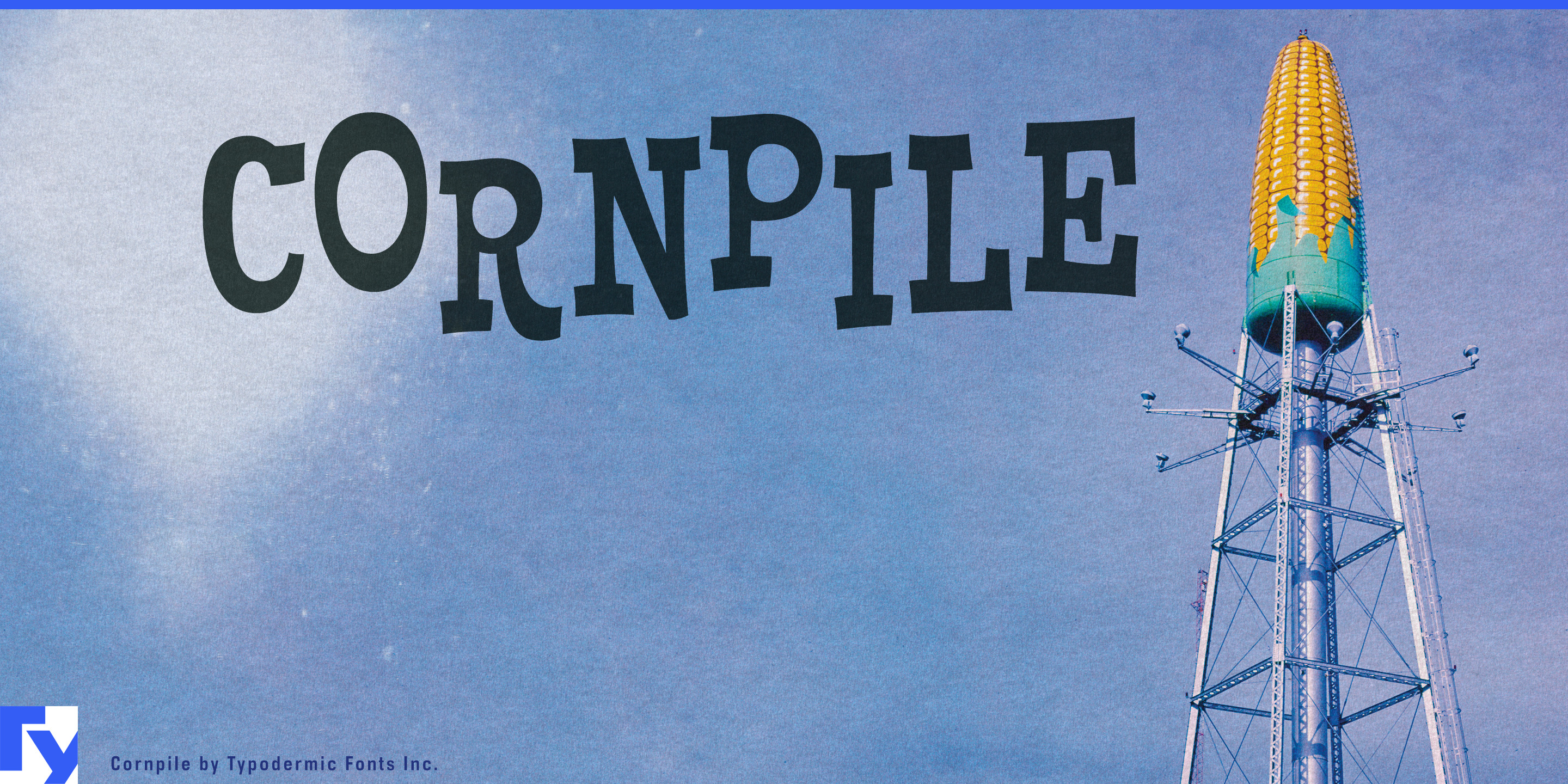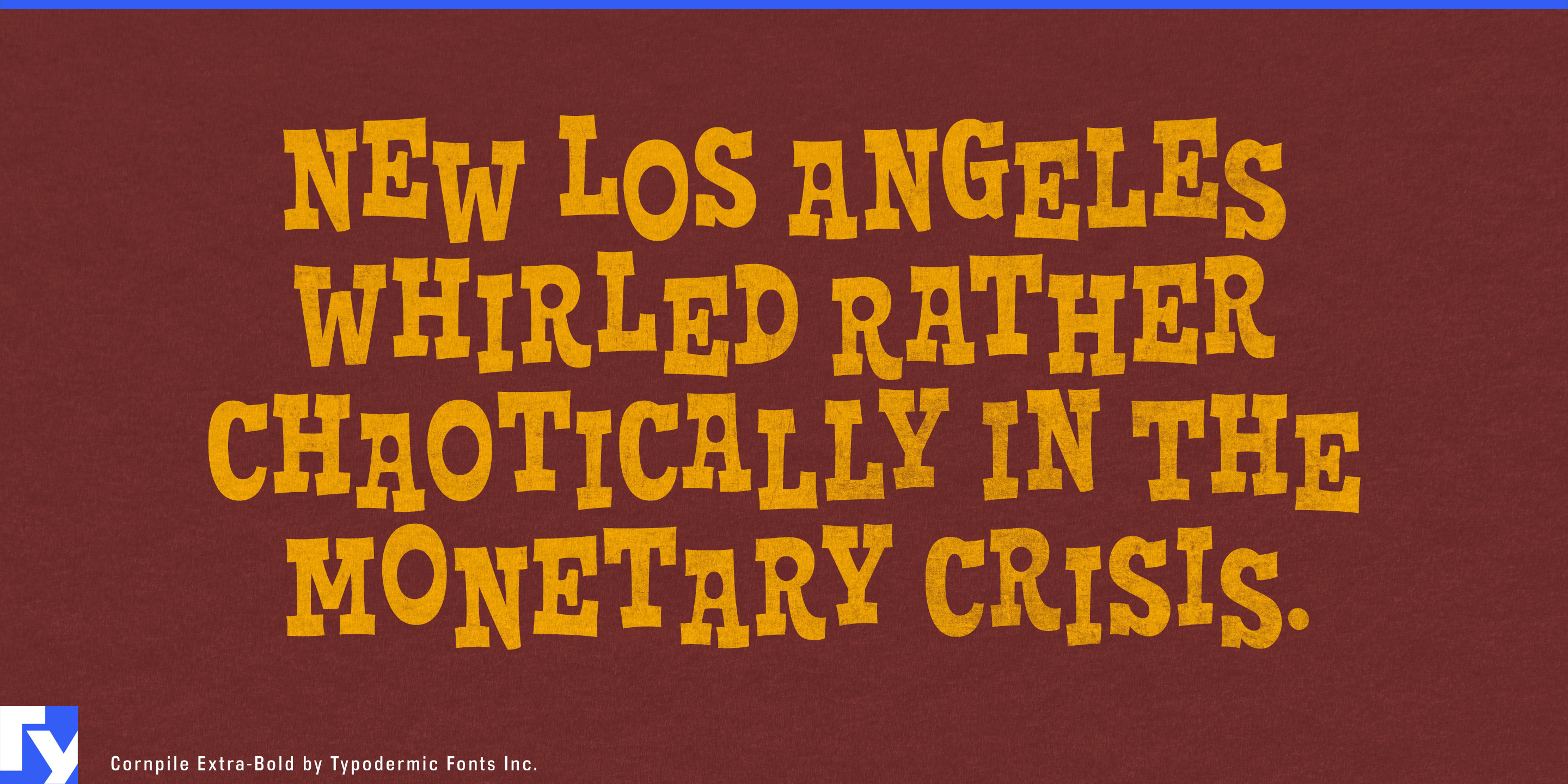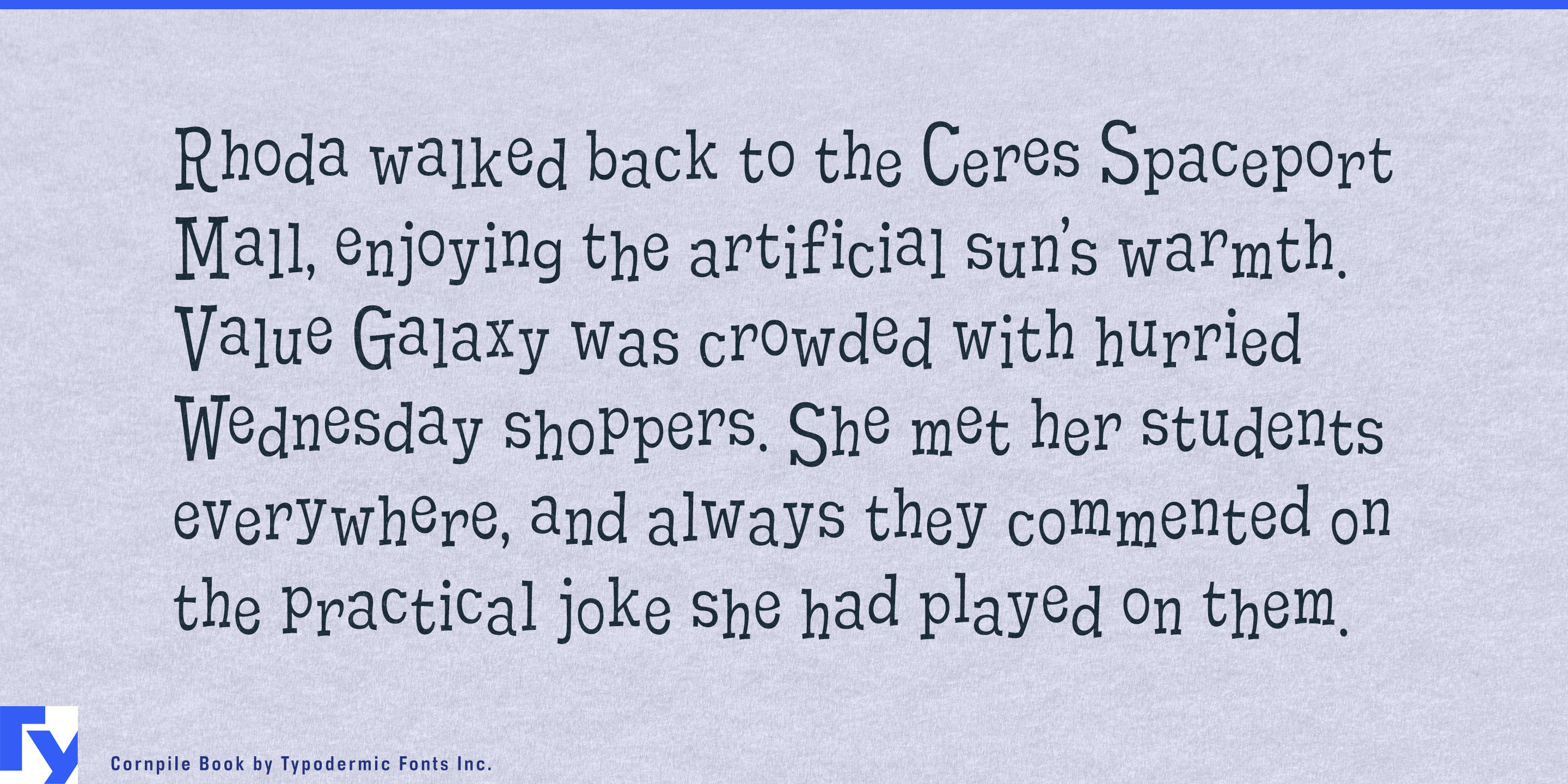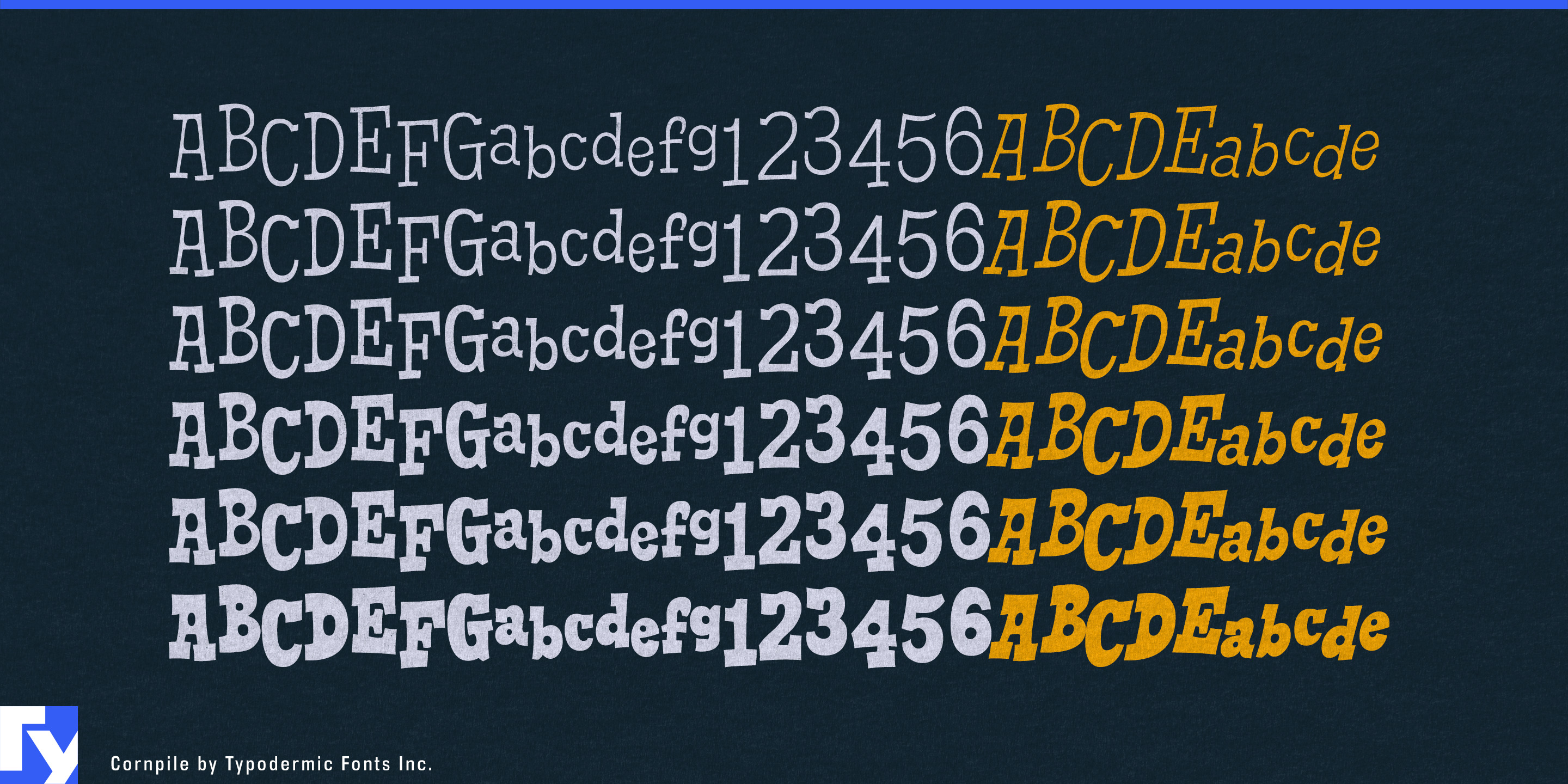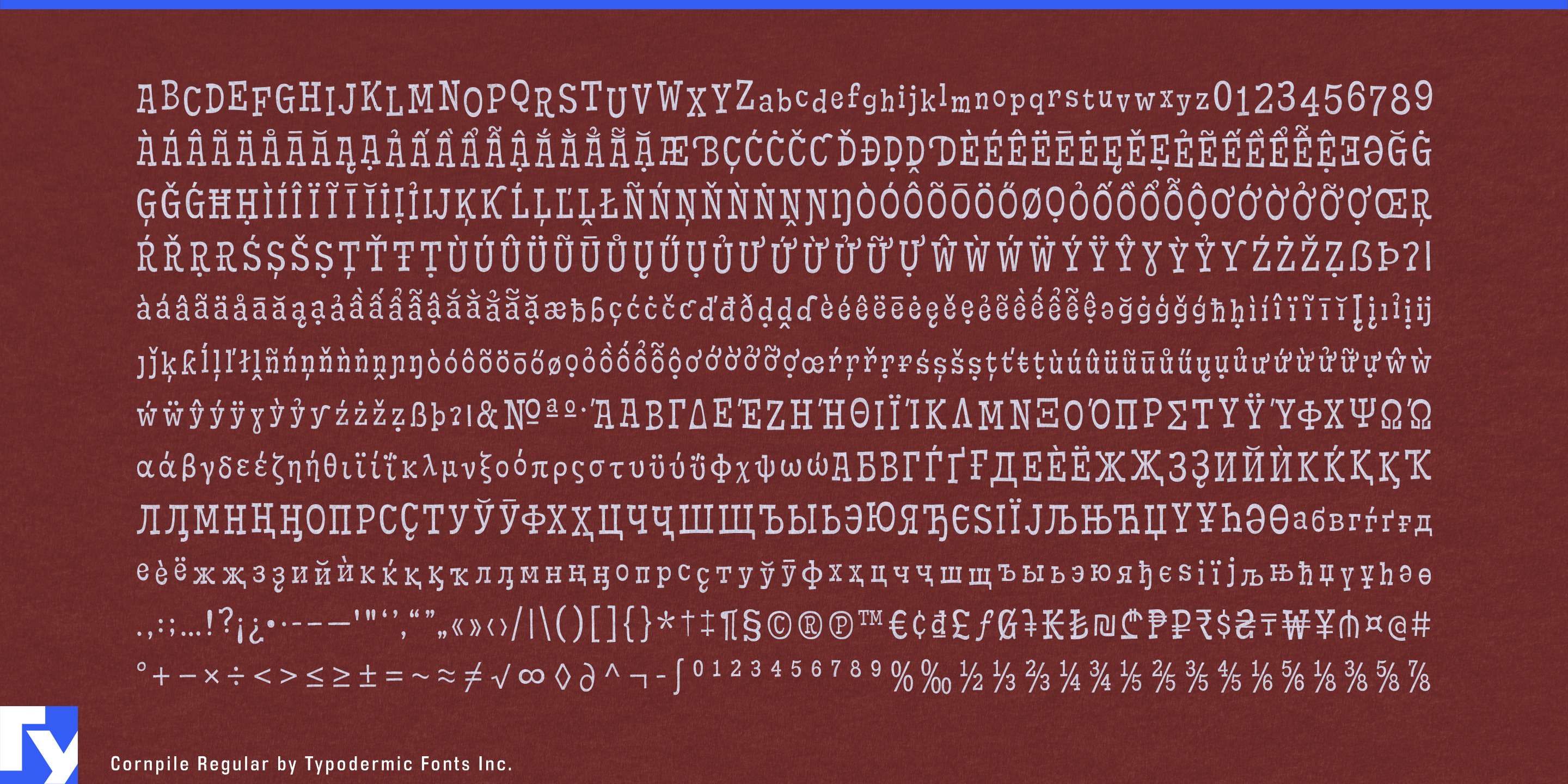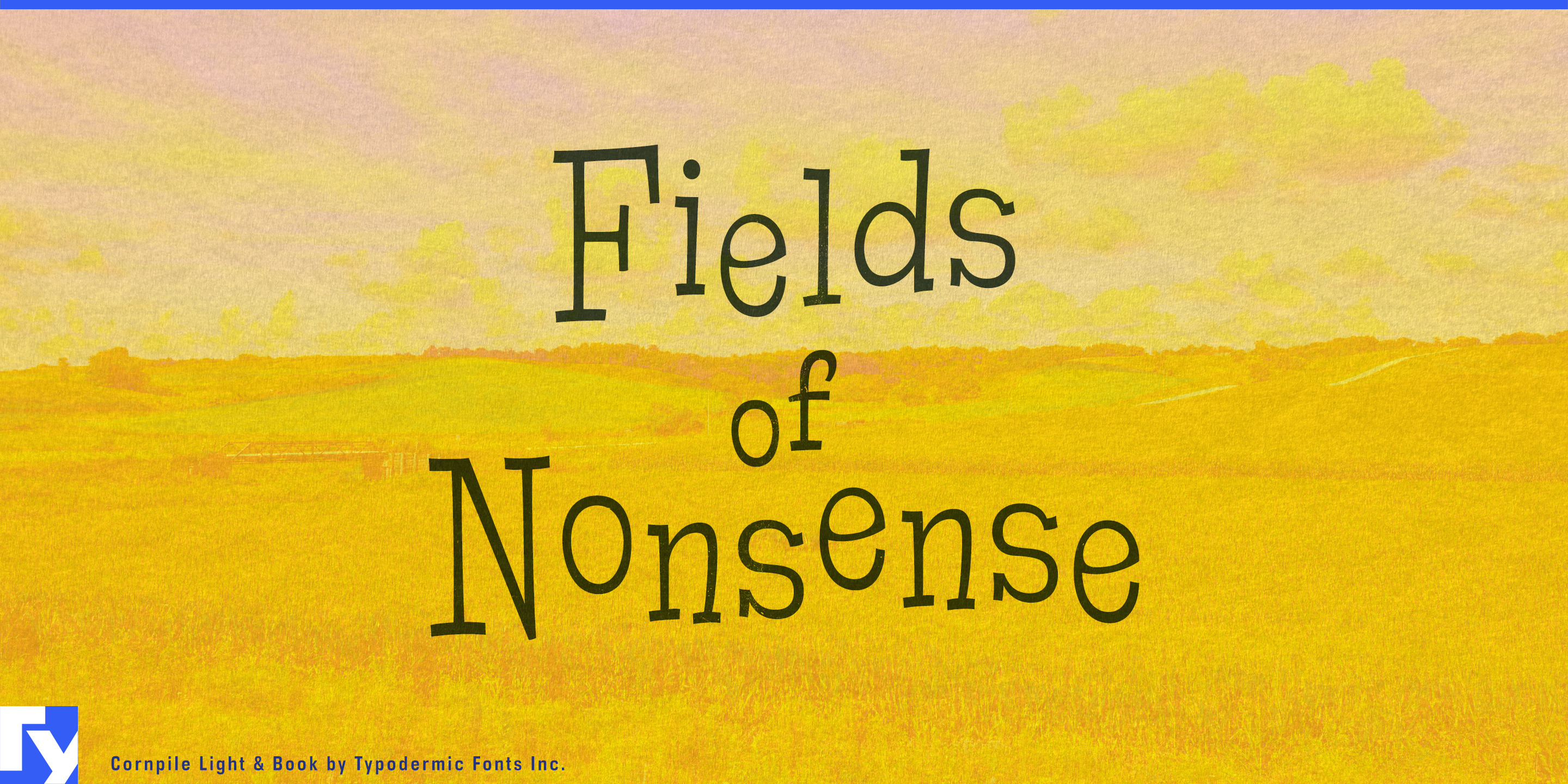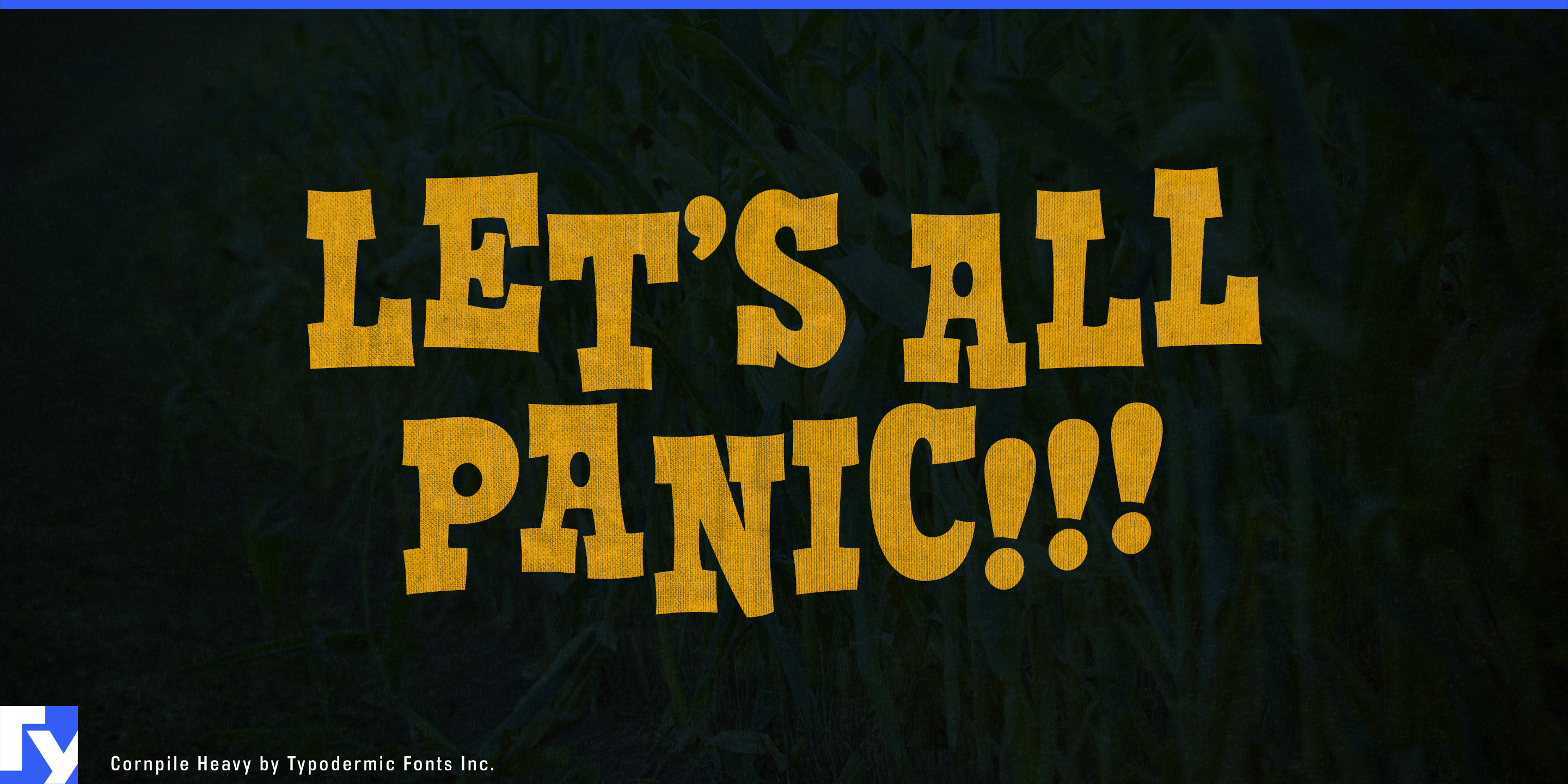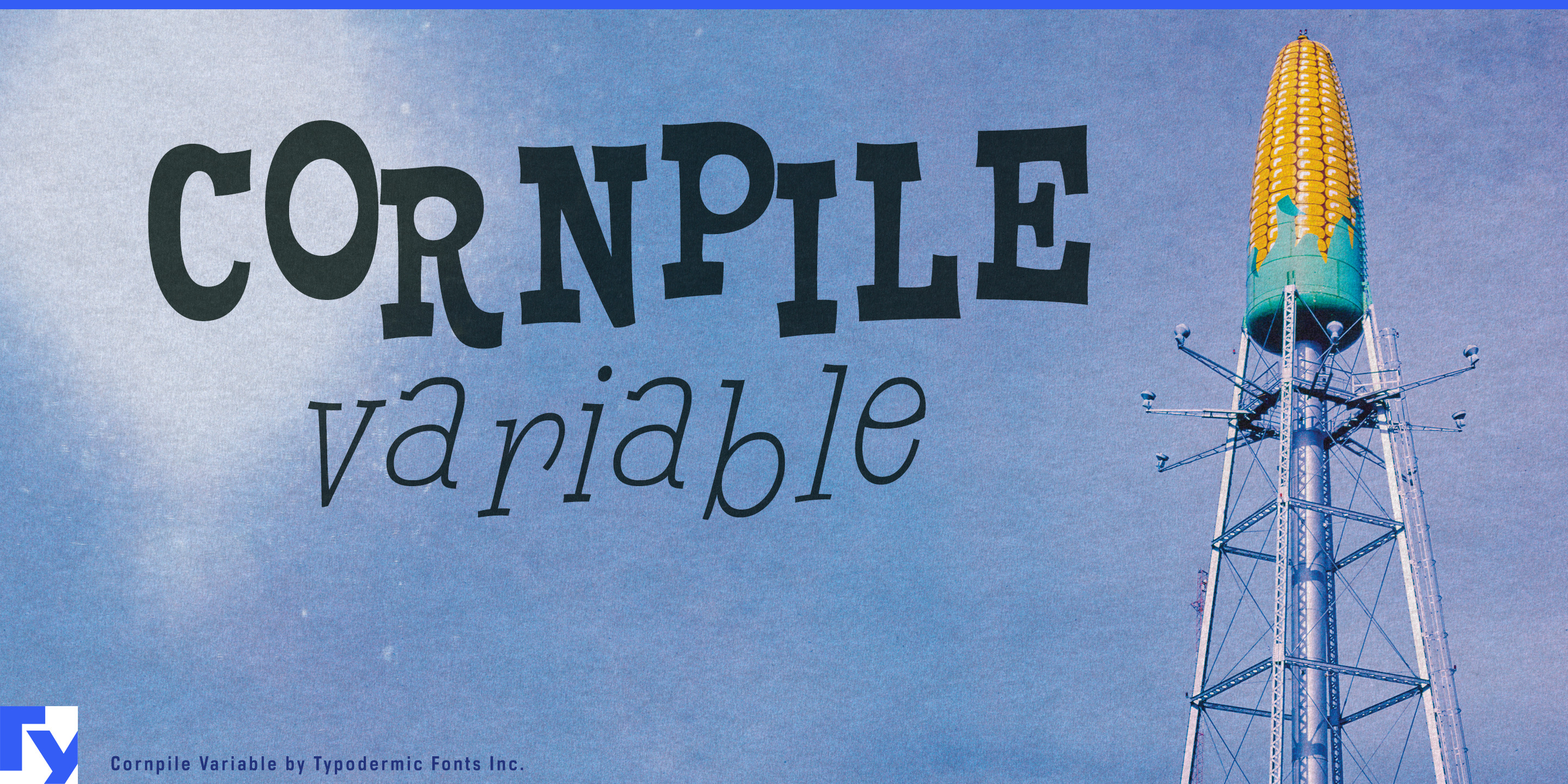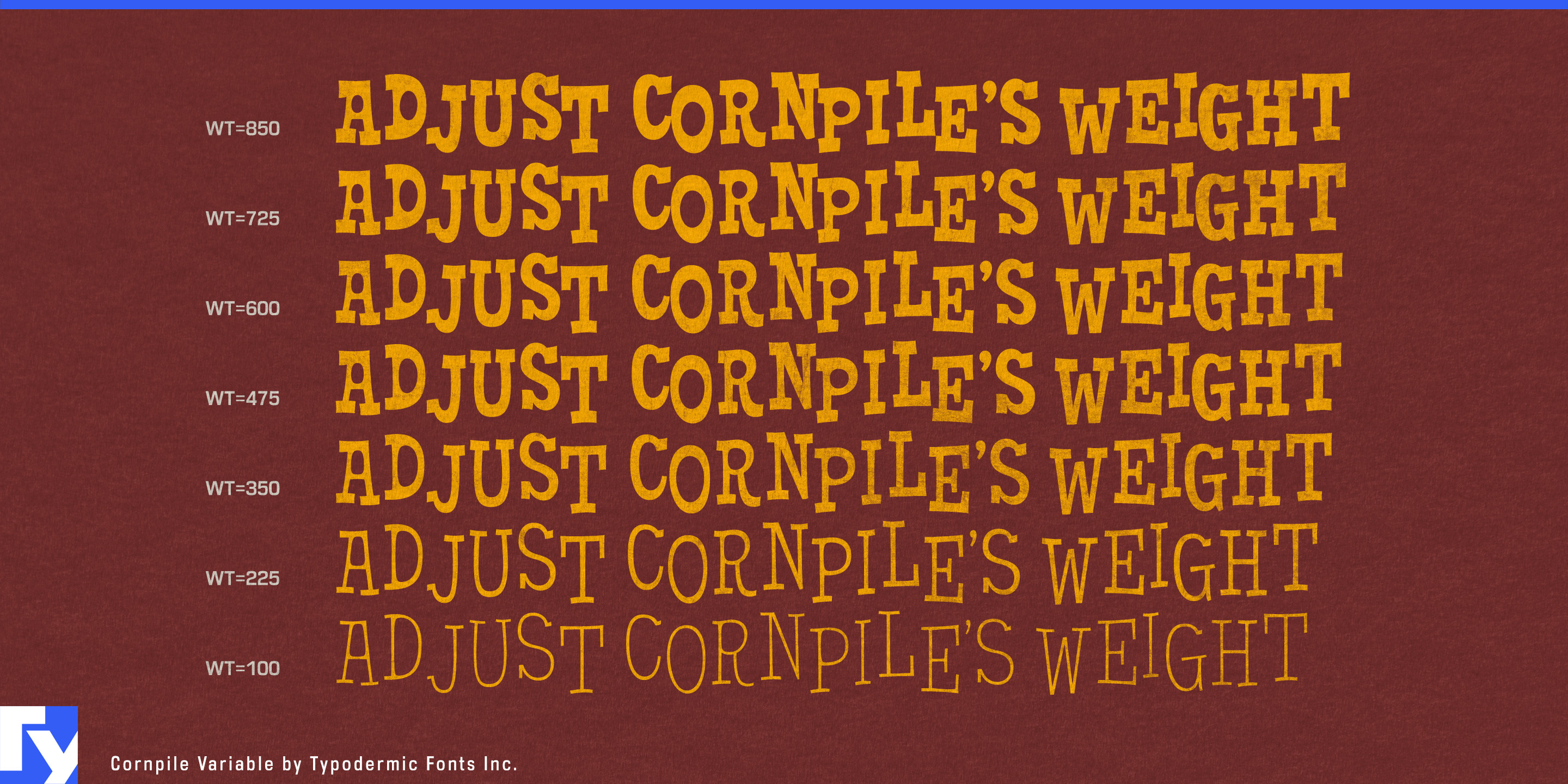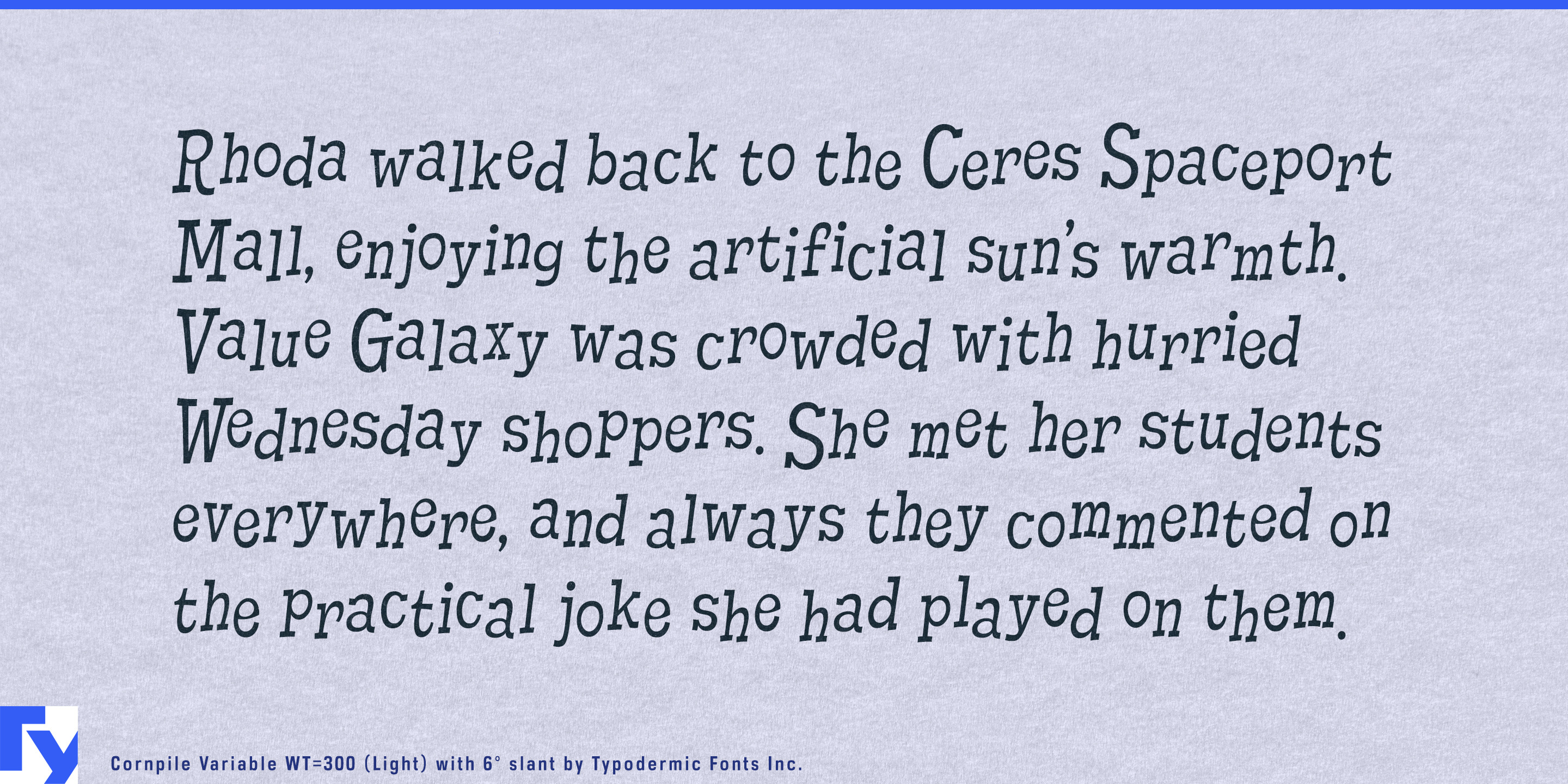
Cornpile
Cornpile is for brands and publishers that want the looseness of hand lettering without commissioning new lettering every time the words change. Its irregular curves and shifting forms keep prominent words from settling into the repeated mechanical patterns that can make playful typography feel obviously typeset. The result is lively and slightly unruly, yet practical enough to build a repeatable design system around.
That makes Cornpile especially useful for packaged-food brands with large product ranges. Popcorn, crackers, cookies, cereal, snack bars, frozen treats, flavored nuts, and confectionery lines may need dozens of flavor names, assortment packs, seasonal editions, and promotional variants. Cornpile can handle product names, flavor descriptors, short claims, and section headings while a quieter companion face takes care of nutrition and regulatory information. The lettering remains related across the range without every package feeling cloned from the same template.
Restaurant groups face a similar production problem. Burger, barbecue, sandwich, pizza, chicken, donut, and ice-cream chains continually generate digital menu boards, ordering-screen graphics, seasonal specials, cup and carton graphics, delivery-app promotions, and franchise marketing material. Cornpile brings some of the irregularity of custom lettering to content that still needs to remain editable and reusable.
Its origins in children’s publishing also make it well suited to illustrated nonfiction and educational series. Science, nature, engineering, geography, dinosaurs, space, and how-things-work books can use Cornpile for chapter openings, experiment names, fact boxes, diagram callouts, quiz sections, and recurring features. The same qualities suit educational platforms where lesson titles, challenge names, achievement messages, and category labels change dynamically rather than exist as fixed artwork.
Science centers, natural-history museums, aquariums, planetariums, family board games, and educational products extend the same idea into exhibitions and entertainment. Cornpile works best when irregularity has to become a system: reusable across product families, publishing programs, menus, exhibitions, and changing digital content.